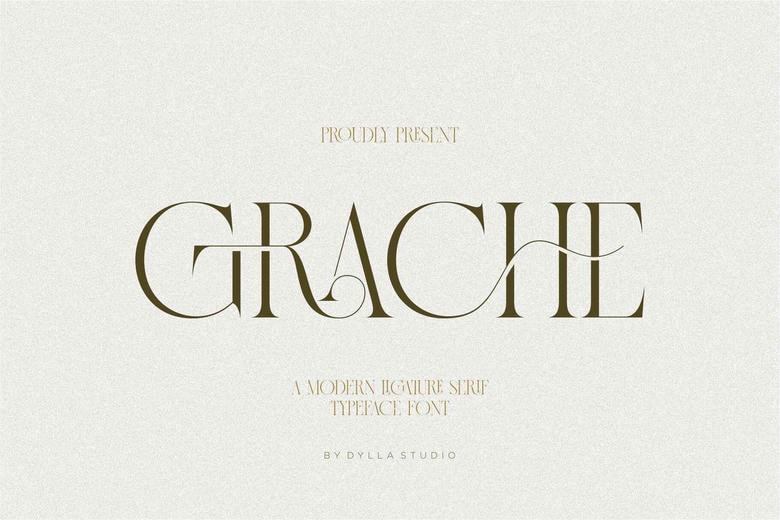
Grache Font
Grache is a modern serif font, inspired by the famous minimalist logo perfect for the purposes of designing templates, brochures, videos, advertising branding, logos, invitation, layout design, elegant crafting, beauty design and more. The free version provides all uppercase and lowercase letters and a few special characters too.
Grache Serif Font